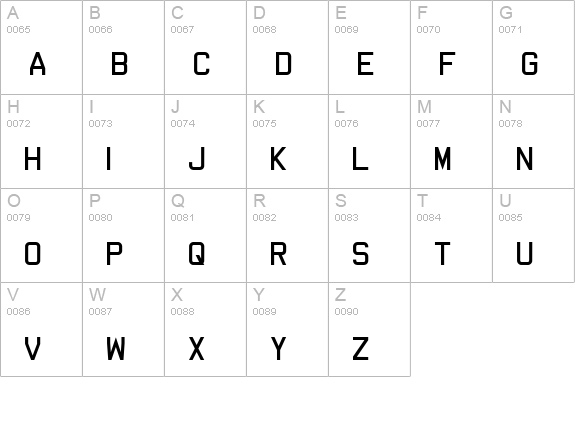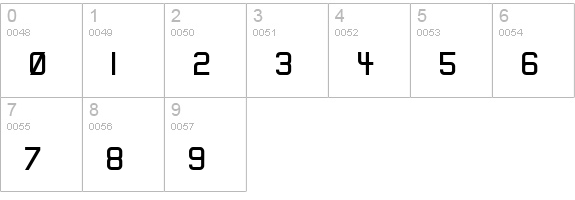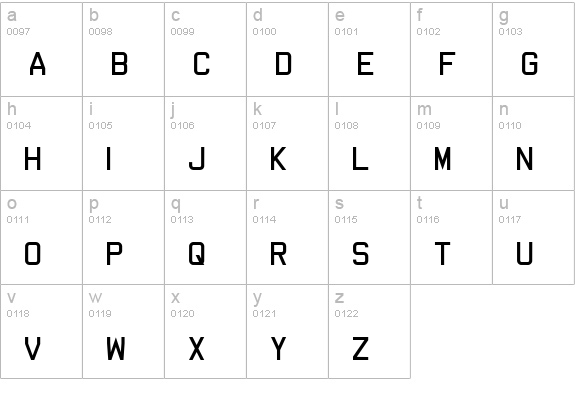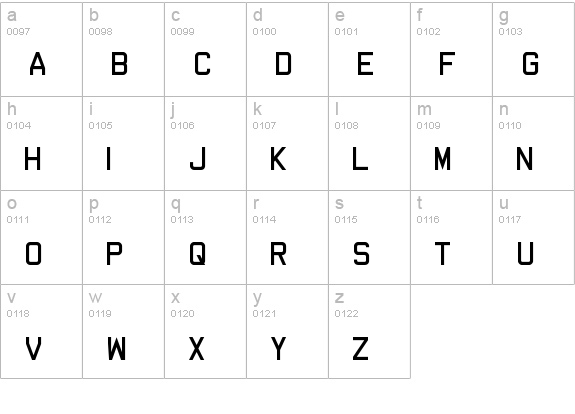
Dev Gothic is a modern and sleek font that combines clean lines with a touch of sophistication. Perfect for a wide range of design projects, from branding to editorial design, this font exudes a sense of professionalism and elegance. Its versatile nature allows it to be used for both headings and body text, making it a valuable addition to any designer's toolkit. The best part about Dev Gothic is that it is completely free to download at FontsMarket.com. This means that you can access this high-quality font without any cost, making it an excellent choice for designers on a budget or anyone looking to add a touch of style to their projects. Don't miss out on the opportunity to enhance your designs with this versatile and elegant font – download Dev Gothic today!